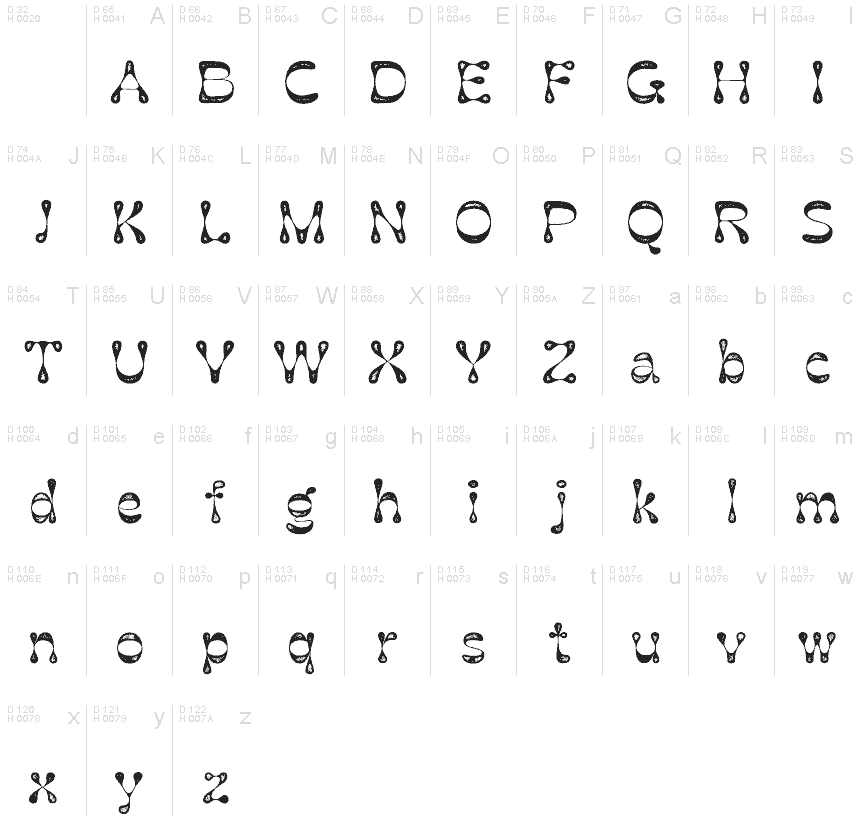
Gadion Vintage Demo Stamp
Gadion Vintage Stamp font is a retro font in a display style designed by Craft Supply Co. Inspired by 1960s/70 psychedelic art, this textured and artistic typeface features an eroded form along with distinctive uneven strokes. It combines symmetry with flowing and organic lined structures to generate expressive and authentic visuals.
This free display font is applicable for contemporary designs ranging from branding for creative industries to vintage-inspired merchandise. Other use cases include websites, brochures, posters, book covers, certificates, postcards, and even business cards. Gadion Vintage Stamp can also be used for logotypes, advertisements, cards design concepts, etc.